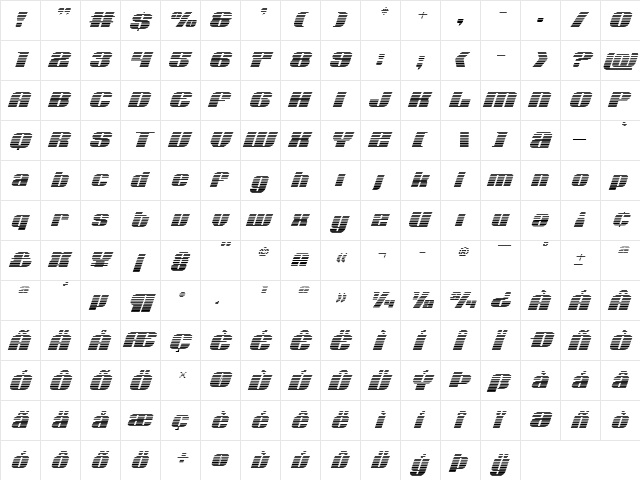
Nolo Contendre Gradient Italic Italic
Design Context for Nolo Contendre Gradient Italic Typeface
Nolo Contendre Gradient Italic is a composed and adaptable typeface that performs quietly and consistently across a wide range of design contexts. The slanted form adds forward momentum and visual energy.
Pro Tip: Use Nolo Contendre Gradient Italic for emphasis, pull quotes, and subheadings where its slanted energy can add rhythm to the layout.